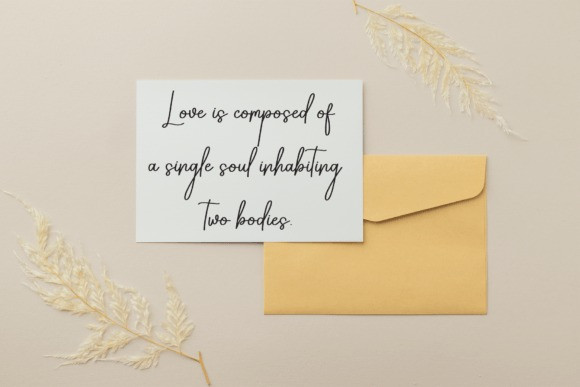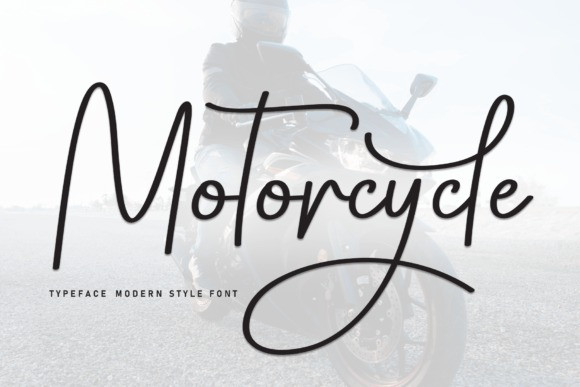
Motorcycle Script Font
Motorcycle Script Font is a sweet and friendly handwritten font. Its natural and unique style makes it incredibly fitting to a large pool of designs. The only limit is your imagination!